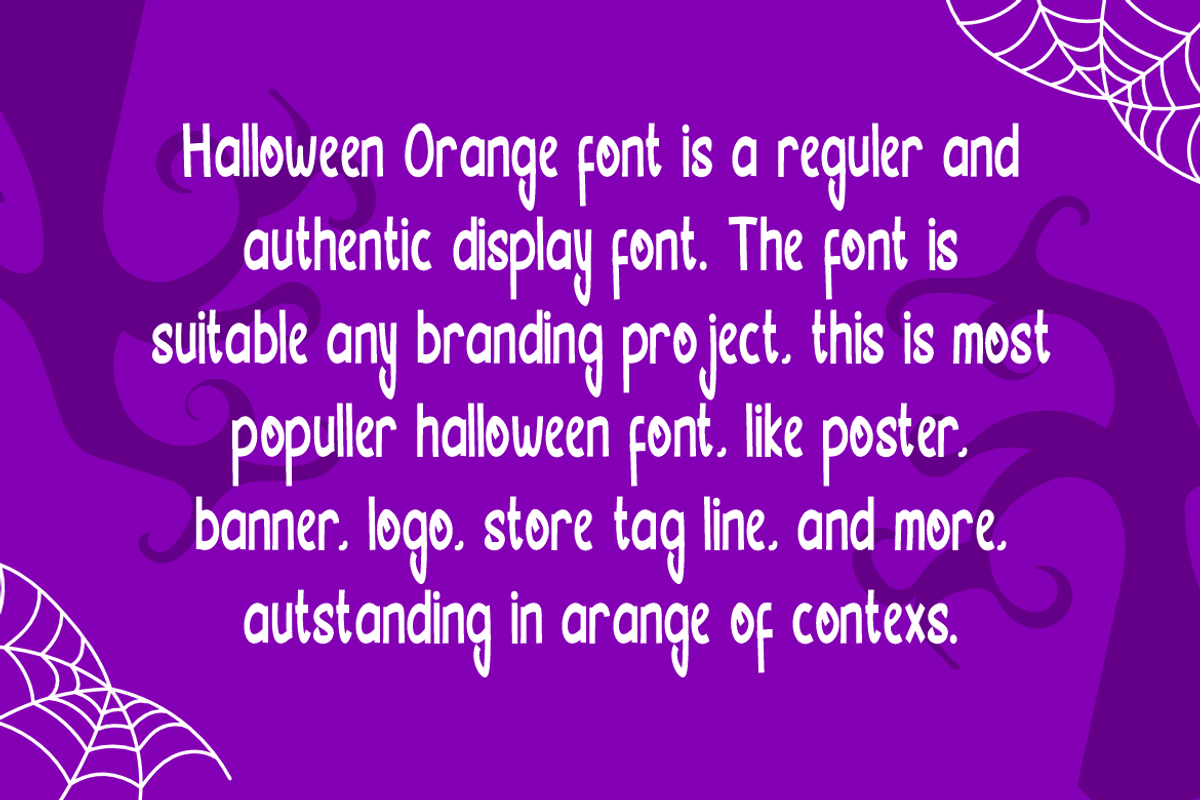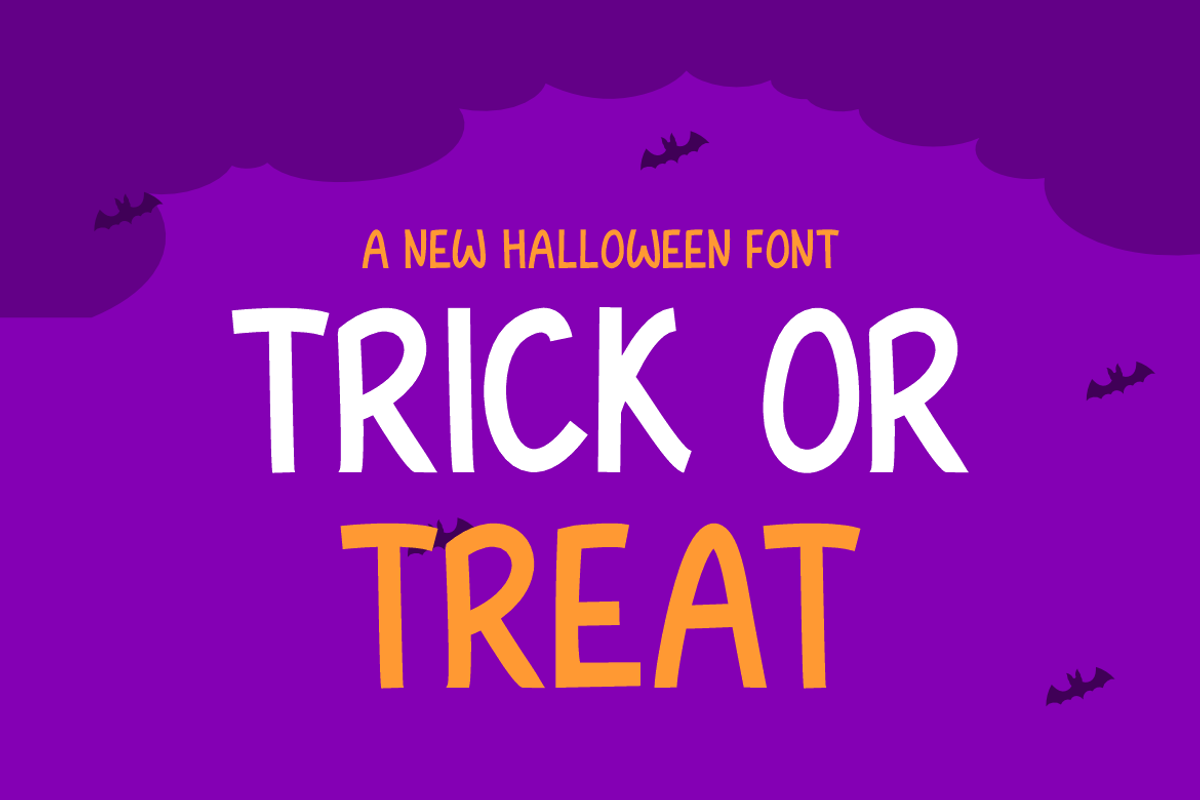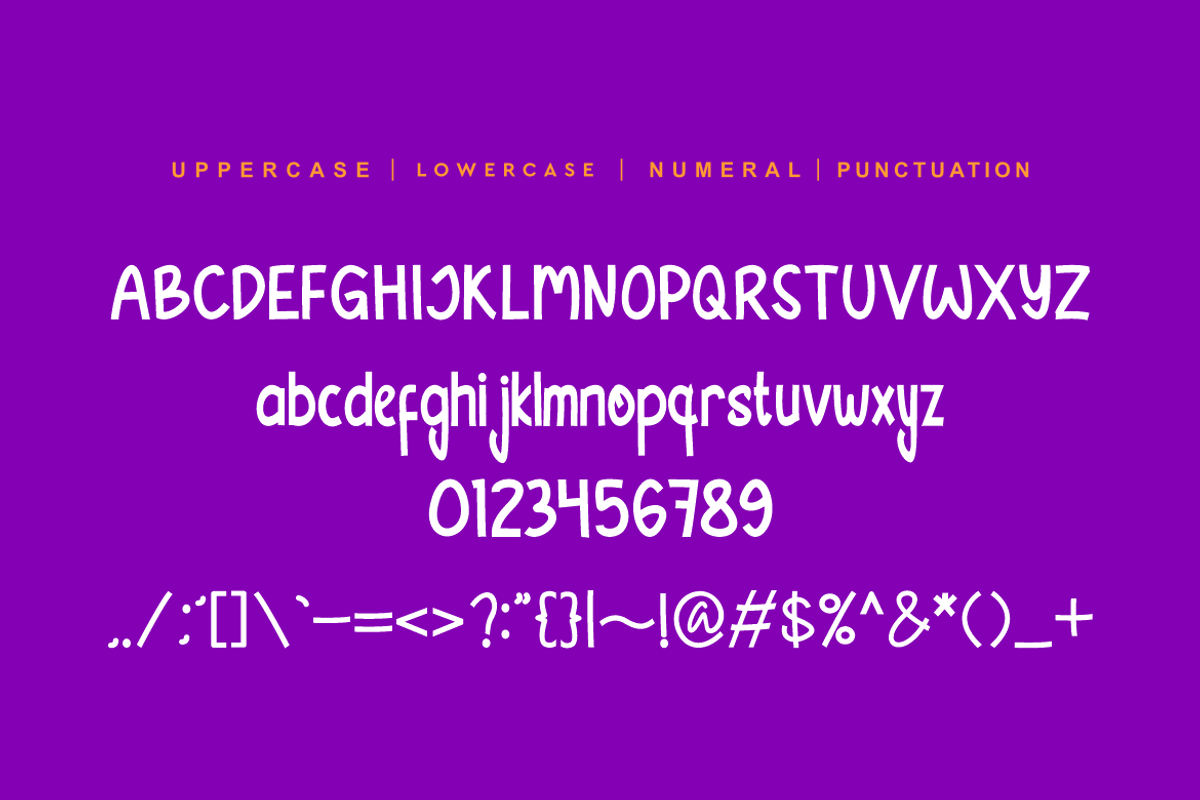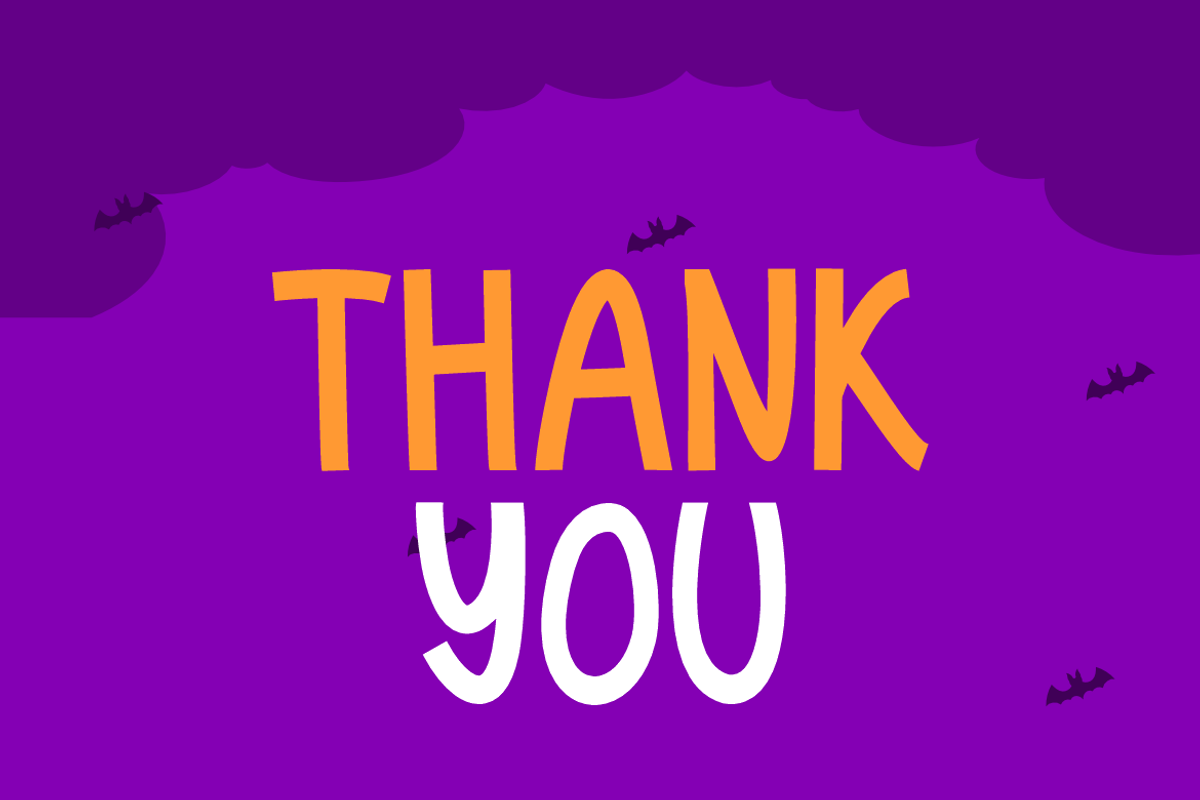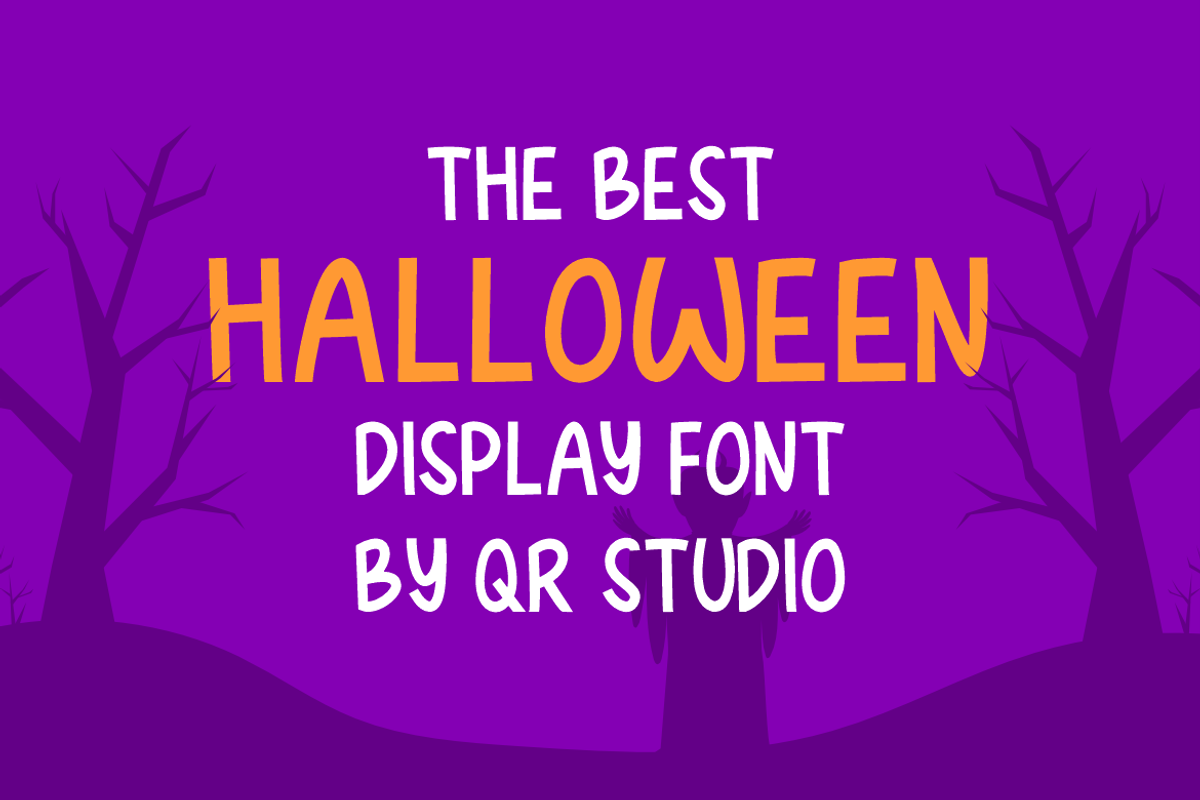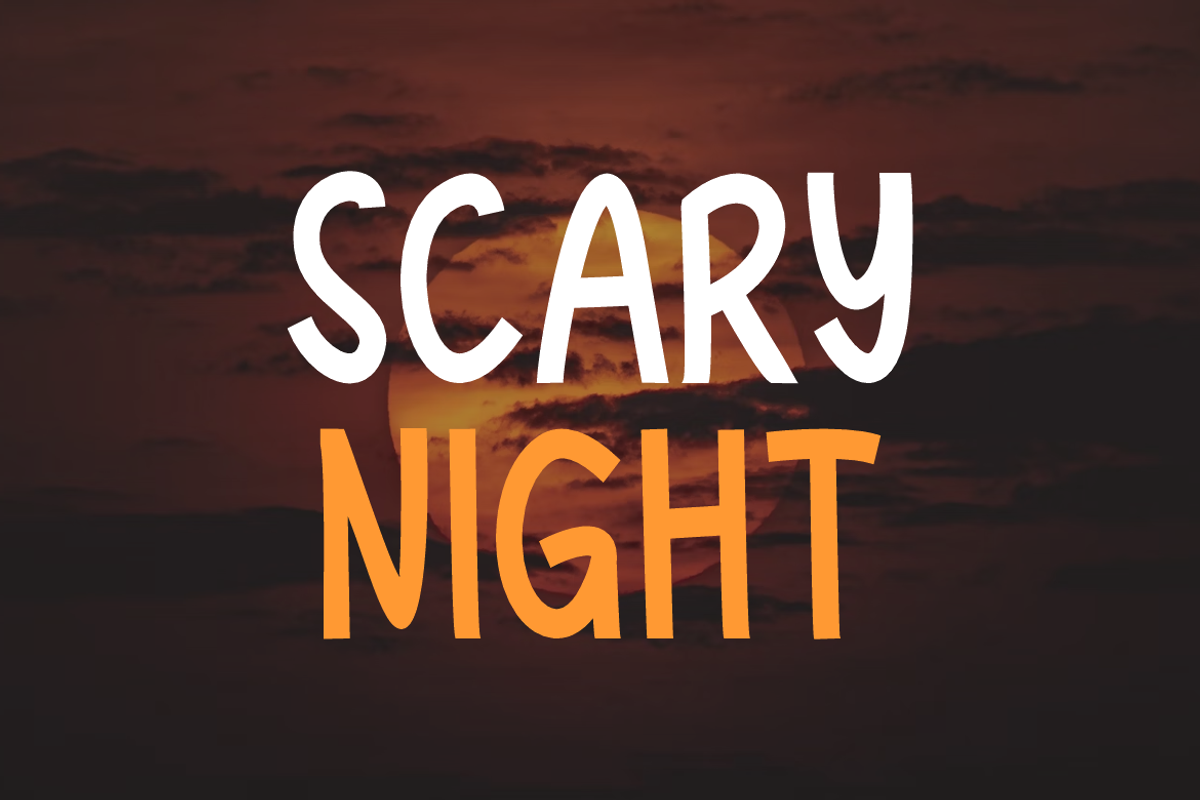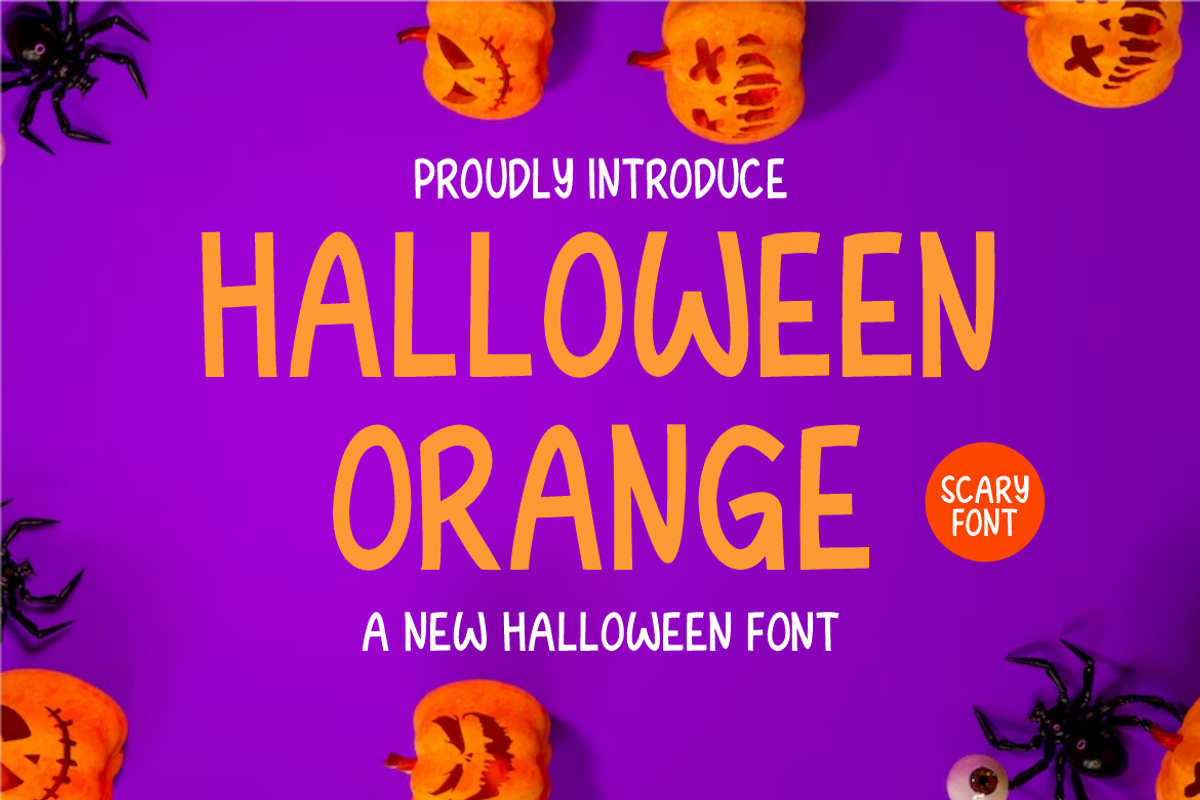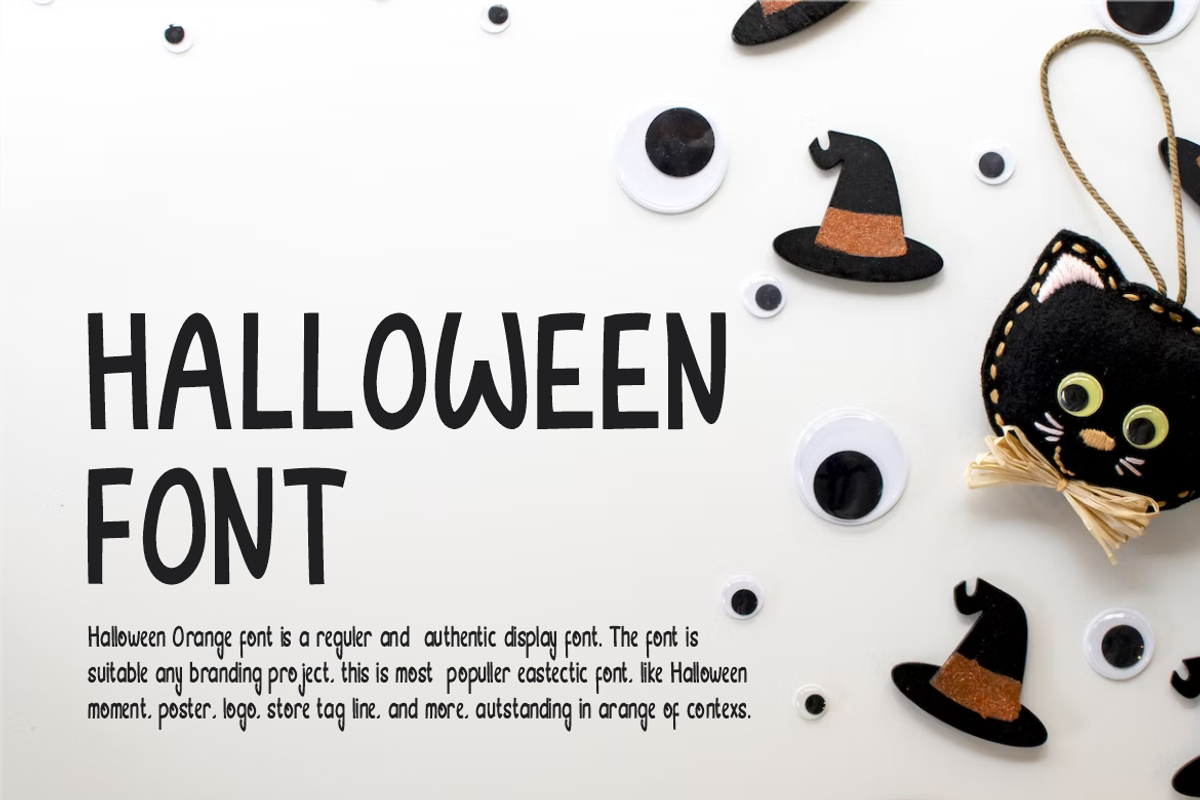
Halloween Orange Font
Halloween Orange Font is a bold and authentic display font. The font is suitable for any branding project like logo, hallowen, food, poster, kids, sport, and many more. Outstanding in a wide range of contexts.